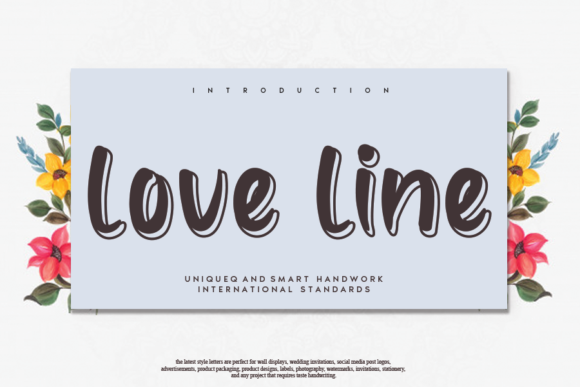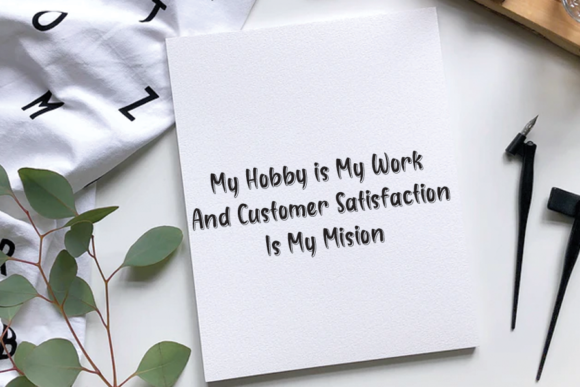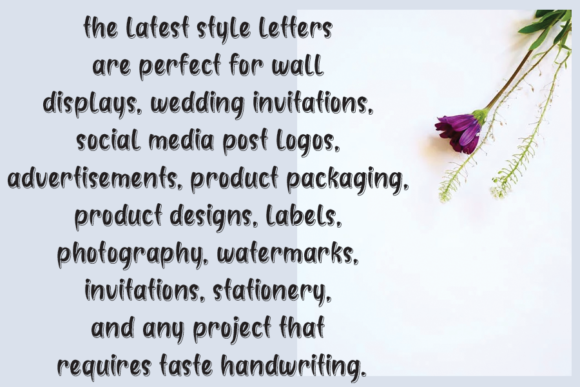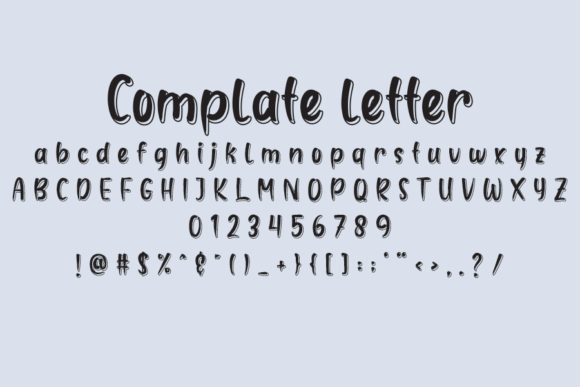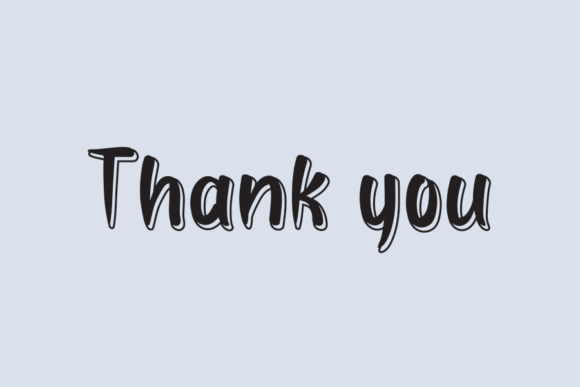
Love Line Font
About Love Line Font
Love Line is a sweet and friendly handwritten font. Its natural and unique style makes it incredibly fitting to a large pool of designs. The only limit is your imagination!